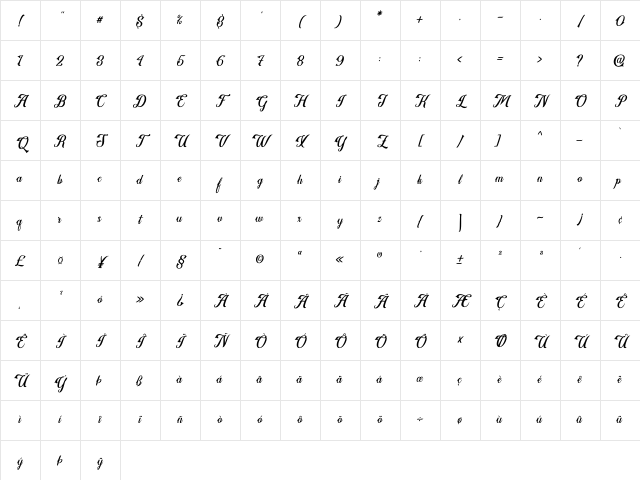
Complete Agressive Rhytmes ROG Regular glyph index. Displaying only characters natively supported by Agressive Rhytmes ROG Regular font.
Agressive Rhytmes ROG is a composed and adaptable typeface that performs quietly and consistently across a wide range of design contexts.